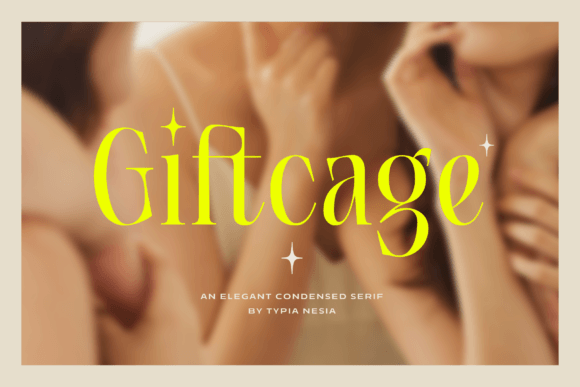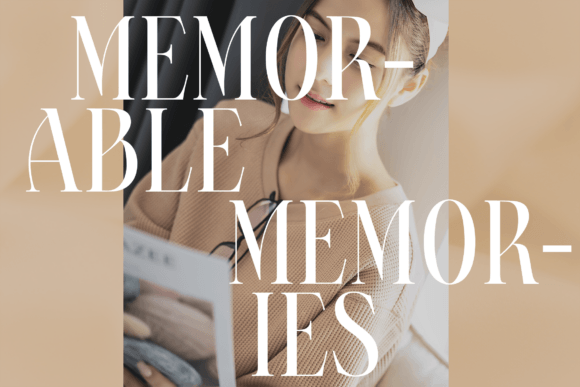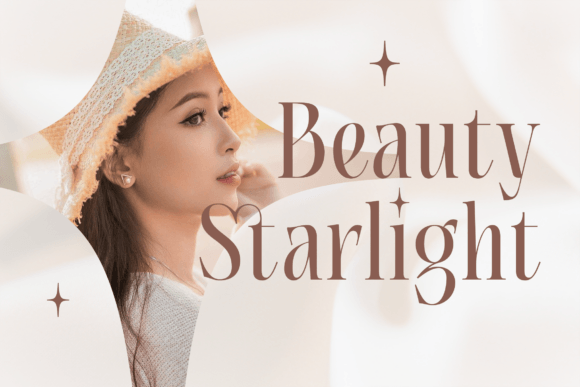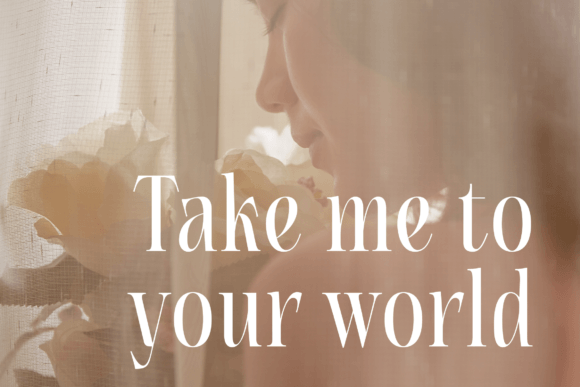
Giftcage Font: Elegant Serif Typography for Luxury Branding & Design
About the Giftcage Font
Meet Giftcage Font, a stunning font that brings a touch of elegance and professionalism to any design. Giftcage comes with some alternates and ligatures, so you can combine it to make a perfect typography design. It is perfect for your up coming projects. Such as luxury logo and branding, classy editorial design, woman magazine, cosmetic brand, fashion promotional, art gallery branding, museum, historical of architectural, boutique branding, stationery design, blog design, modern advertising design, card invitation, art quote, home decor, book/cover title, special events and any more.
Giftcage’s elegant and slightly playful personality makes it ideal for headlines, logos, and short-form text in branding projects for luxury goods, cosmetics, or high-end fashion. It also works well for invitations, posters, and short-form editorial design where its decorative elements can add visual interest. Avoid using it for large blocks of body text or UI elements where readability is paramount; its decorative nature can hinder legibility in smaller sizes or extended use.
Pairing Giftcage effectively requires considering its refined character. A clean sans-serif like Montserrat or Lato would create a strong, modern contrast, while a classic serif like Garamond or Playfair Display could enhance its sophisticated feel. For a more playful approach, consider pairing it with a script font like Allura or Great Vibes, but use it sparingly to avoid overwhelming the design.
Ultimately, Giftcage’s strength lies in its ability to add a touch of refined luxury and subtle playfulness. Its best applications highlight these qualities without compromising legibility.
Giftcage Font Usage Examples
Giftcage Font Example